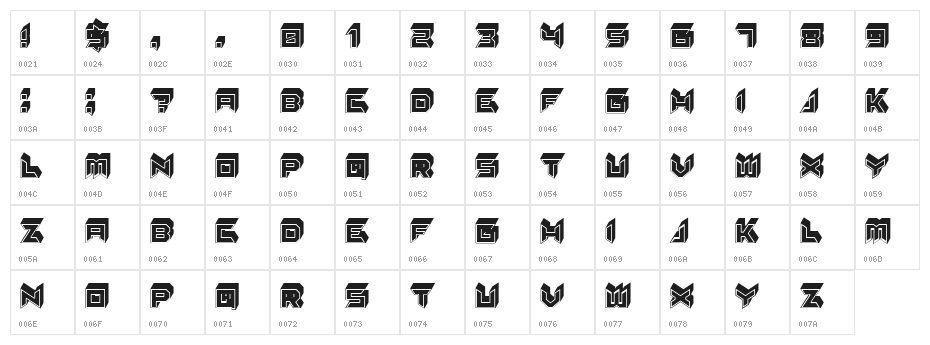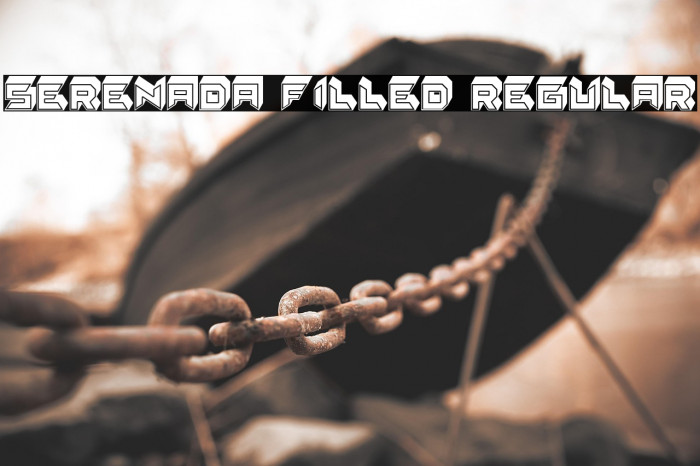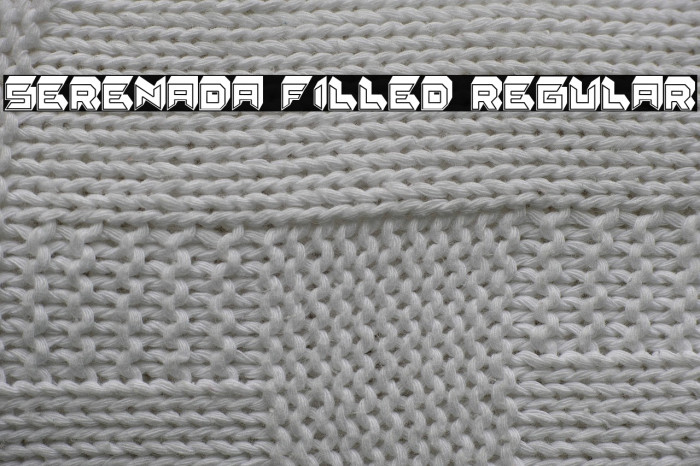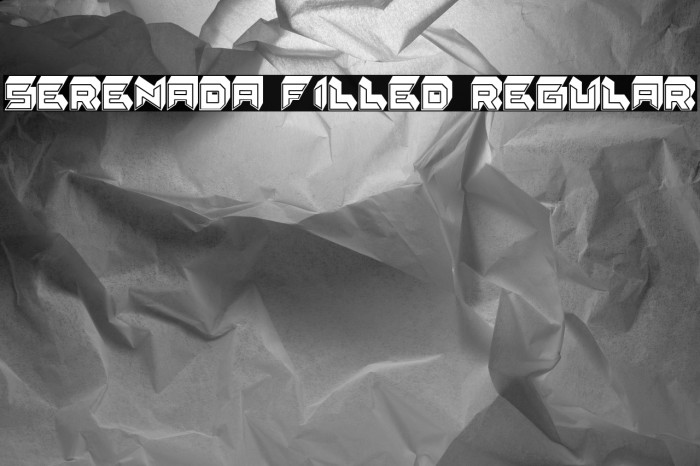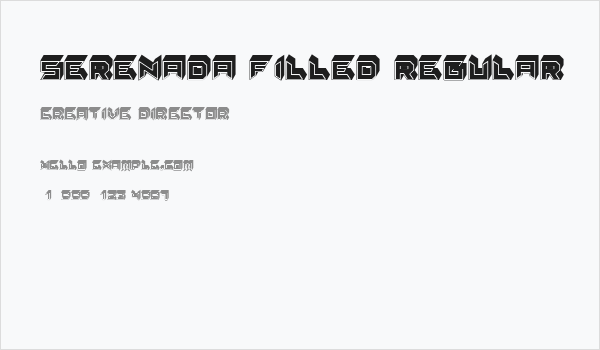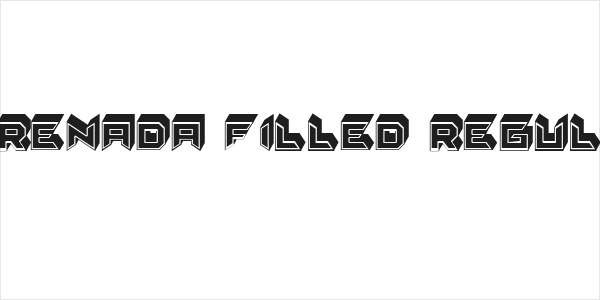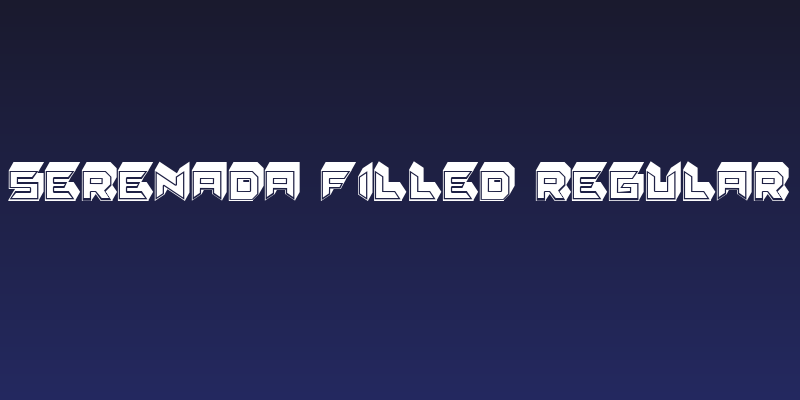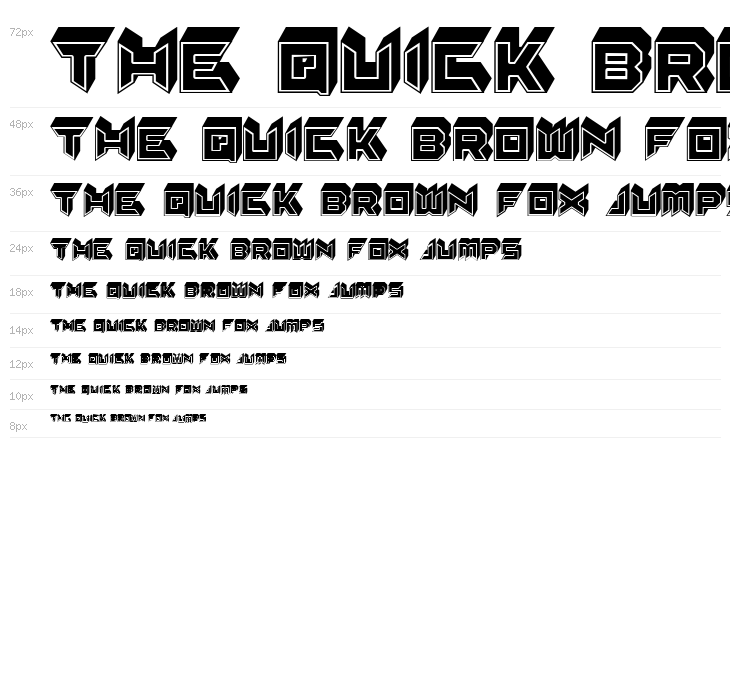
Serenada Filled Regular Font
Serenada Filled Regular Description
This font features a bold and dynamic design with a filled, three-dimensional appearance. The characters are constructed with sharp angles and geometric shapes, giving them a futuristic and industrial feel. The thick strokes and solid fills create a strong visual impact, making it ideal for attention-grabbing headlines or logos. The uppercase and lowercase letters maintain a consistent style, while the numerals and special characters complement the overall aesthetic. The font's unique design elements make it stand out, offering a modern and edgy look.